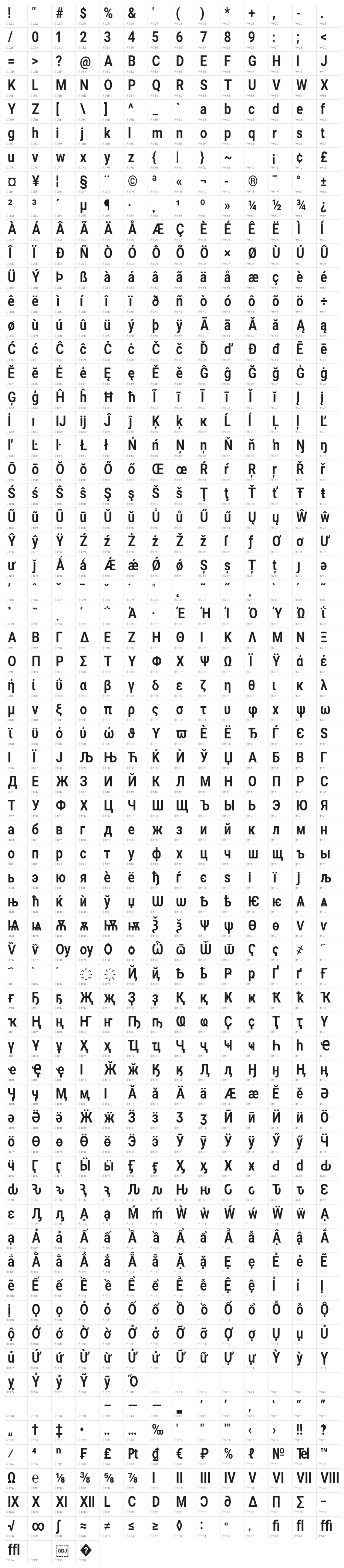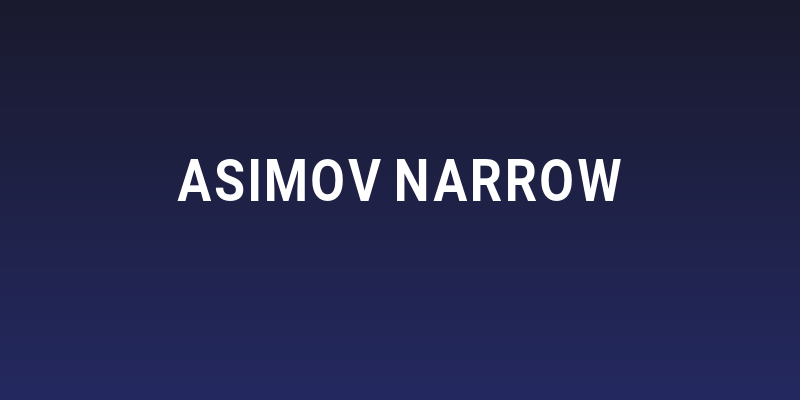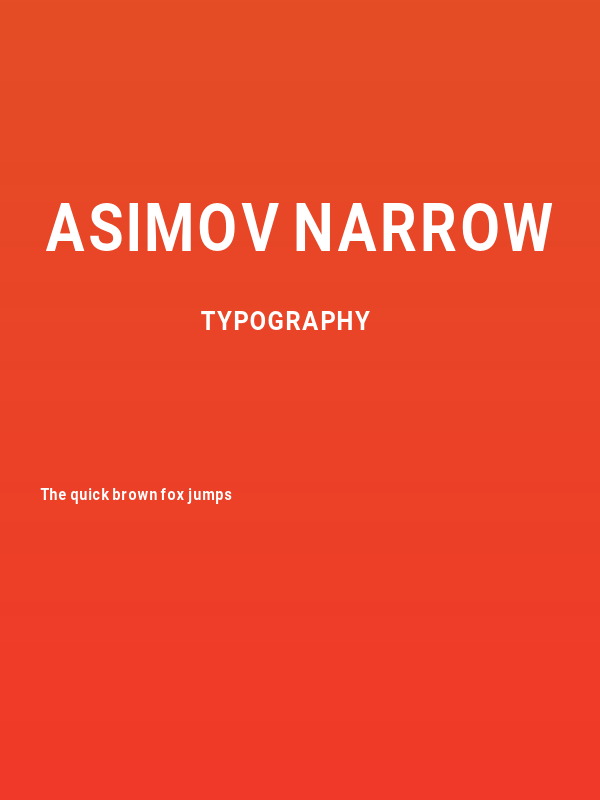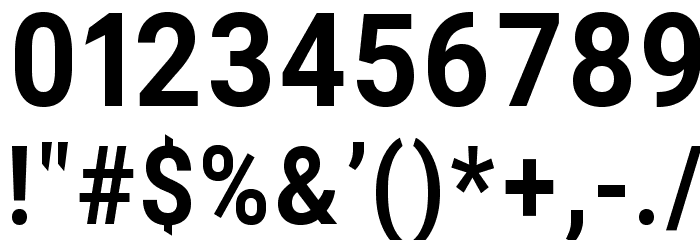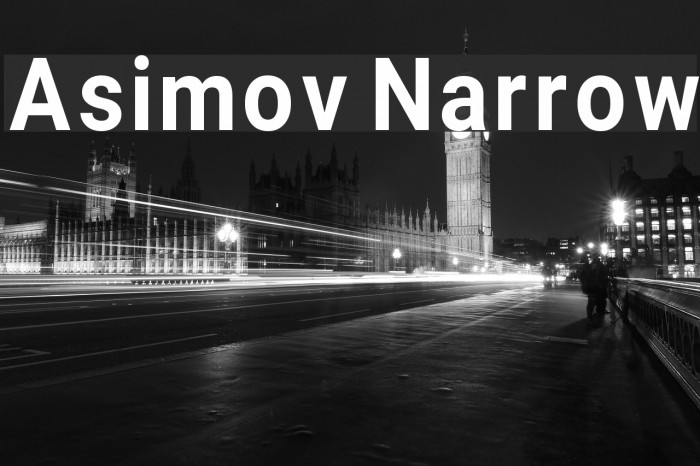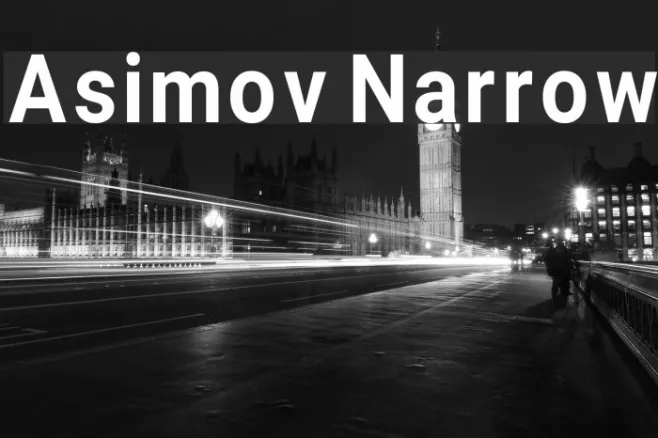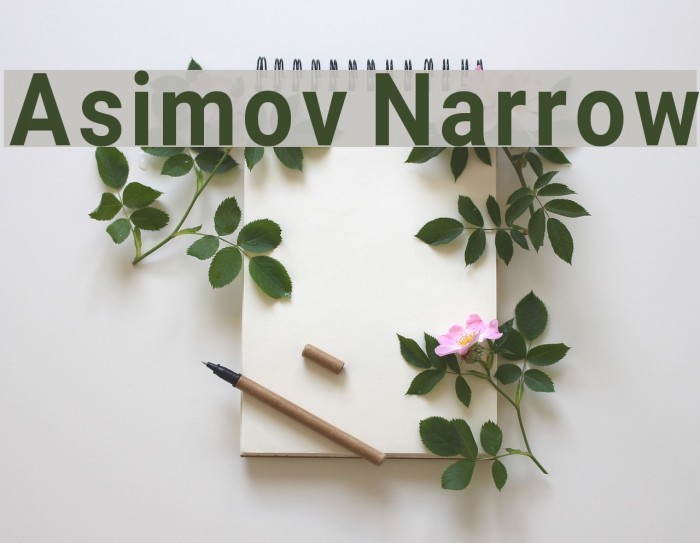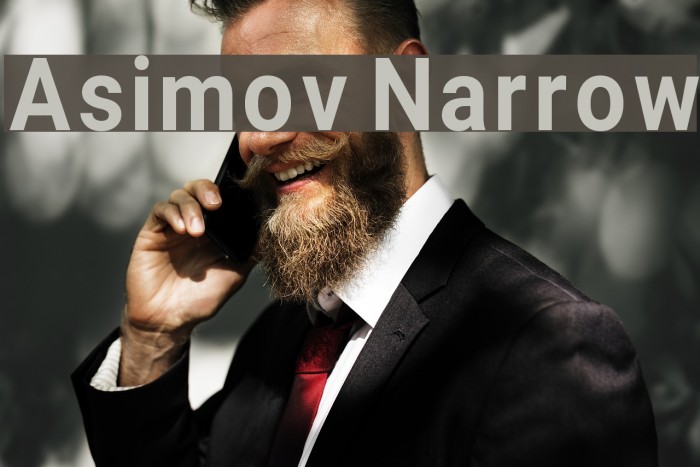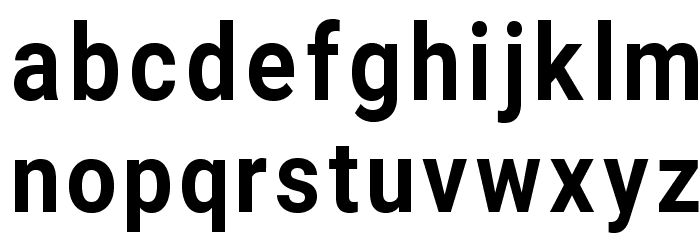
Asimov Narrow Font
Asimov Narrow Description
This font features a clean and modern design with a narrow structure, making it ideal for space-saving applications. The characters are bold and uniform, providing excellent readability. The uppercase and lowercase letters maintain a consistent style, with rounded edges that soften the overall appearance. The numerals are clear and distinct, ensuring they stand out in any context. Special characters are well-defined, adding to the versatility of the font. Its straightforward design makes it suitable for a variety of digital and print media.
| Use Case | Headlines, Logos, Web design |
| Proposed Projects | Ideal for headlines, posters, web design, and branding materials where space is limited. |